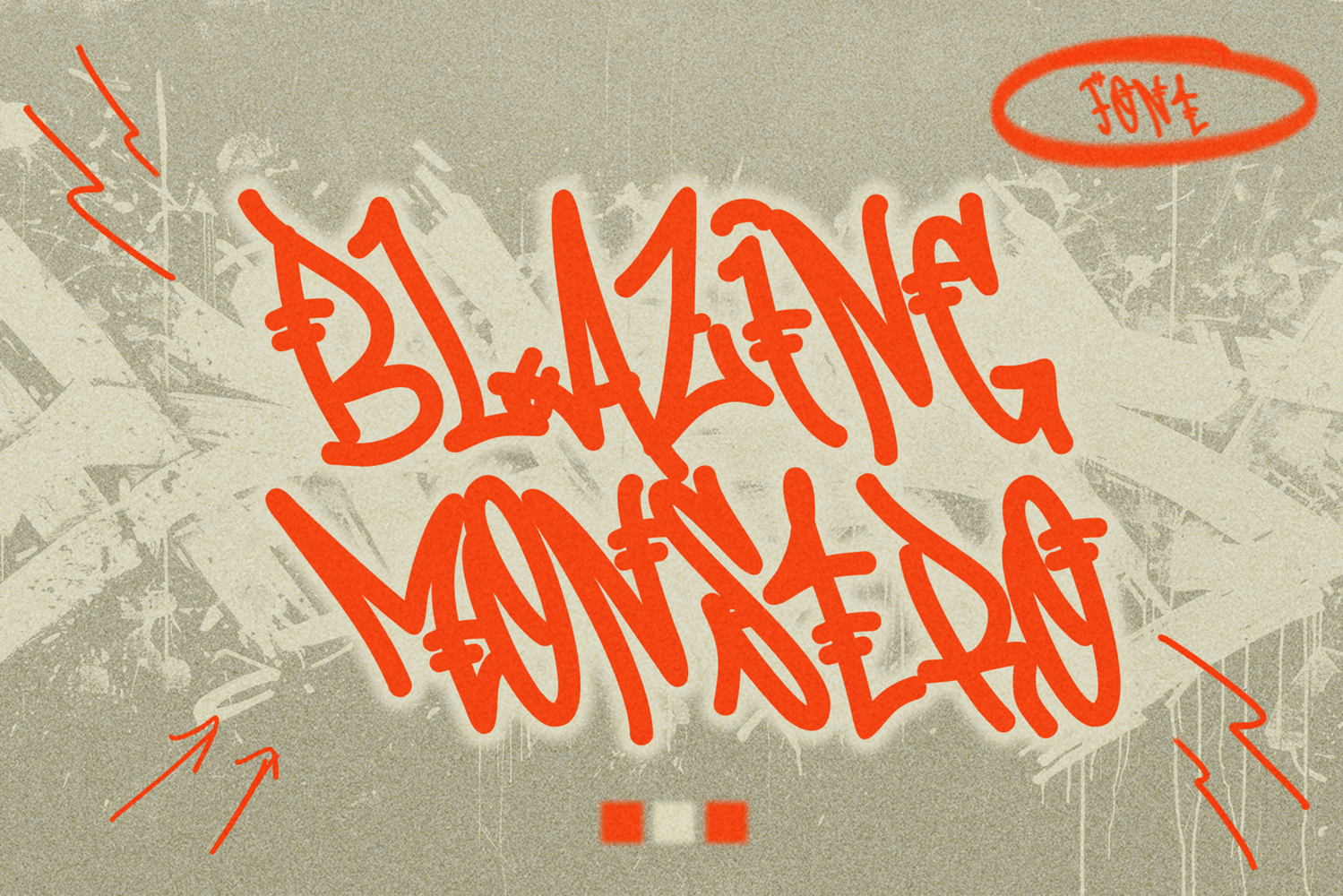
Blazing Monstro - Freestyle Graffiti Tagging Font
Introducing Blazing Monstro – the Freestyle Graffiti Font that unleashes raw, untamed creativity in your designs. Perfect for projects that demand a bold, rebellious touch, Blazing Monstro captures the spirit of street art with its dynamic and expressive letterforms.
🔥 Raw and Untamed: Blazing Monstro embodies the essence of freestyle graffiti with its fierce and powerful strokes. Each character is designed to convey a sense of wild creativity, making it ideal for designs that need an edgy and daring appeal.
🌟 Urban Edge: This font brings the authentic feel of urban street art to your projects. Whether you're creating posters, or album covers, Blazing Monstro infuses your work with a gritty, rebellious spirit that stands out.
🖋️ Versatile for Various Projects: Blazing Monstro is perfect for a wide range of creative applications, from branding and packaging to digital art and social media graphics. Its unique style ensures your text grabs attention and leaves a lasting impression.
🎨 Dynamic and Expressive: The dynamic nature of Blazing Monstro adds a captivating touch to your designs. Its bold lines and energetic strokes make your text pop, creating a visually impactful look that resonates with urban culture.
Elevate your designs with Blazing Monstro – the Freestyle Graffiti Font that combines rawness, versatility, and an authentic street vibe. Ideal for making a powerful visual impact, Blazing Monstro is your go-to font for adding an edgy and dynamic touch to any project.